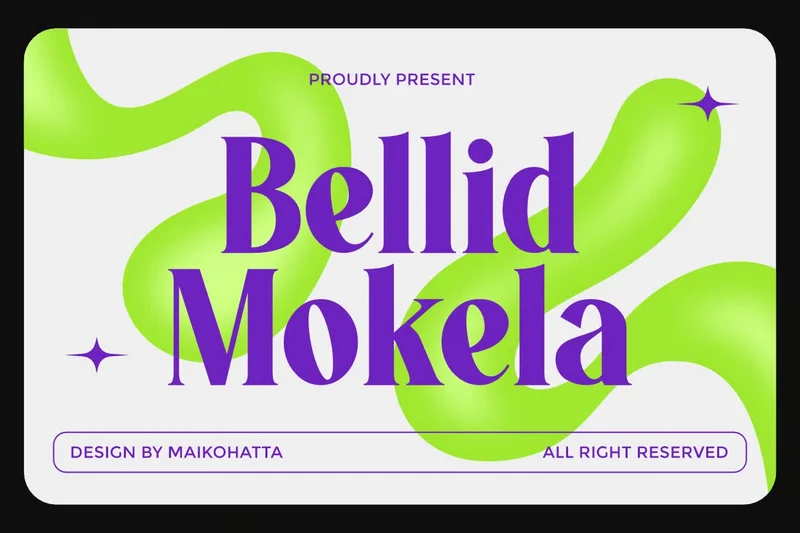
Bellid Mokela – Bold Serif Typeface
Introducing our new product Bellid Mokela – Bold Serif Typeface
Introducing Bellid Mokela is a bold yet elegant modern serif font that combines classic charm with a fresh contemporary twist. Its strong serifs, high contrast strokes, and stylish curves make it a perfect choice for projects that demand sophistication and personality.
Ideal for logos, branding, editorial designs, fashion, invitations, packaging, and social media, Bellid Mokela brings a timeless yet trendy look to every project. The font’s striking details ensure it stands out in both print and digital media, while maintaining excellent readability.
With its refined elegance and versatile style, Bellid Mokela is more than just a typeface—it’s a statement of creativity.